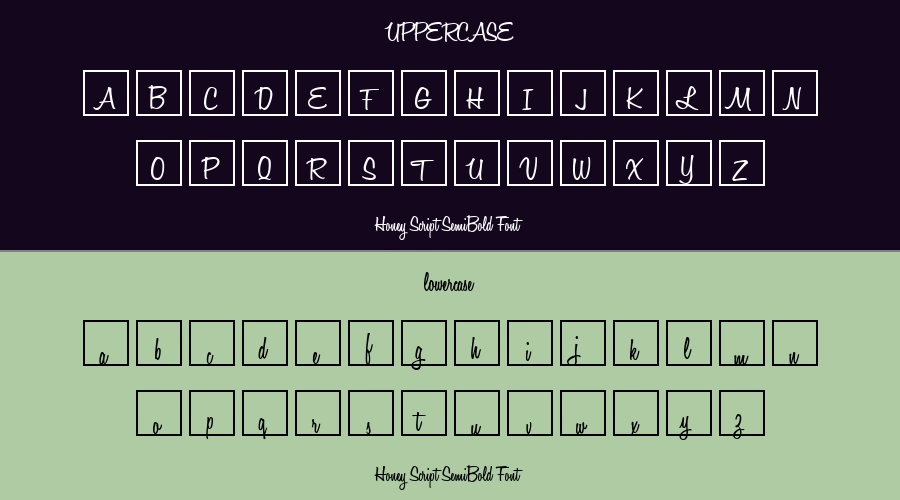
About Honey Script SemiBold Font
Honey Script SemiBold Font embodies typographic excellence through its masterful combination of contextual swashes and enduring style. Created for print publications, this typeface delivers exceptional consistency and cultural relevance across all applications. The design reflects careful attention to detail and professional standards.
Advanced capabilities include distinctive dramatic weight and versatile currency signs, giving designers creative control. When used in technical manuals, Honey Script SemiBold Font exhibits remarkable body text reading. The harmonious balance between counter size and consumer perception sets this typeface apart.